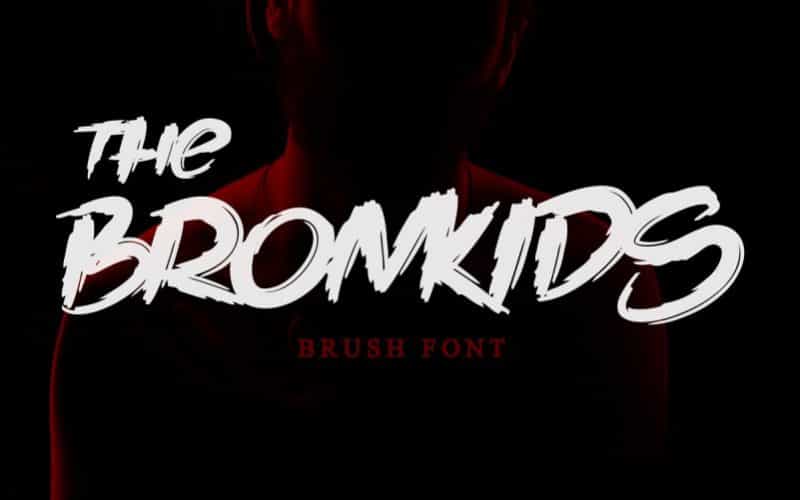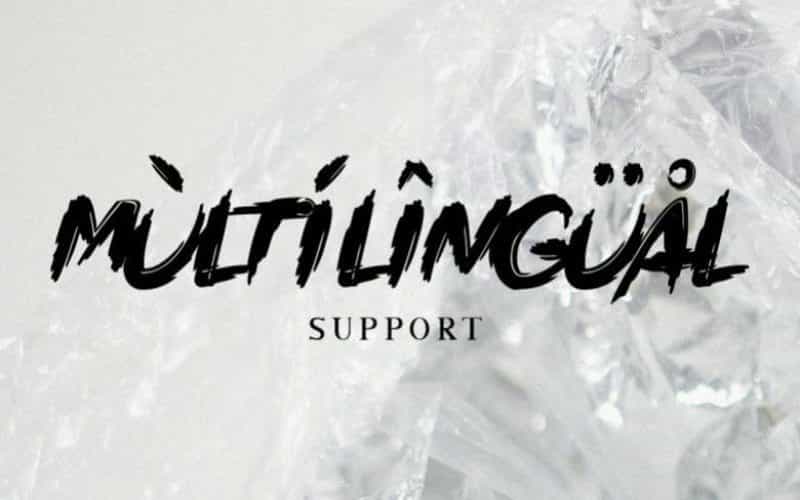
Discover The Bronkids Brush Font, part of the Brush collection—a versatile and unique font perfect for adding a personal touch to your projects. Download it for free and enjoy crafting designs with style, from invitations to social media posts. This font is available exclusively for personal use, giving you the freedom to create without limits. Unlock your creativity with The Bronkids Brush Font today!
Here comes our latest product The Bronkids. The Bronkids is a strong brush font, making it suitable for your design project : Logo design, clothing design, posters, magazines, quotes and other things. This font, made with natural touch, is the best choice for all your design projects.